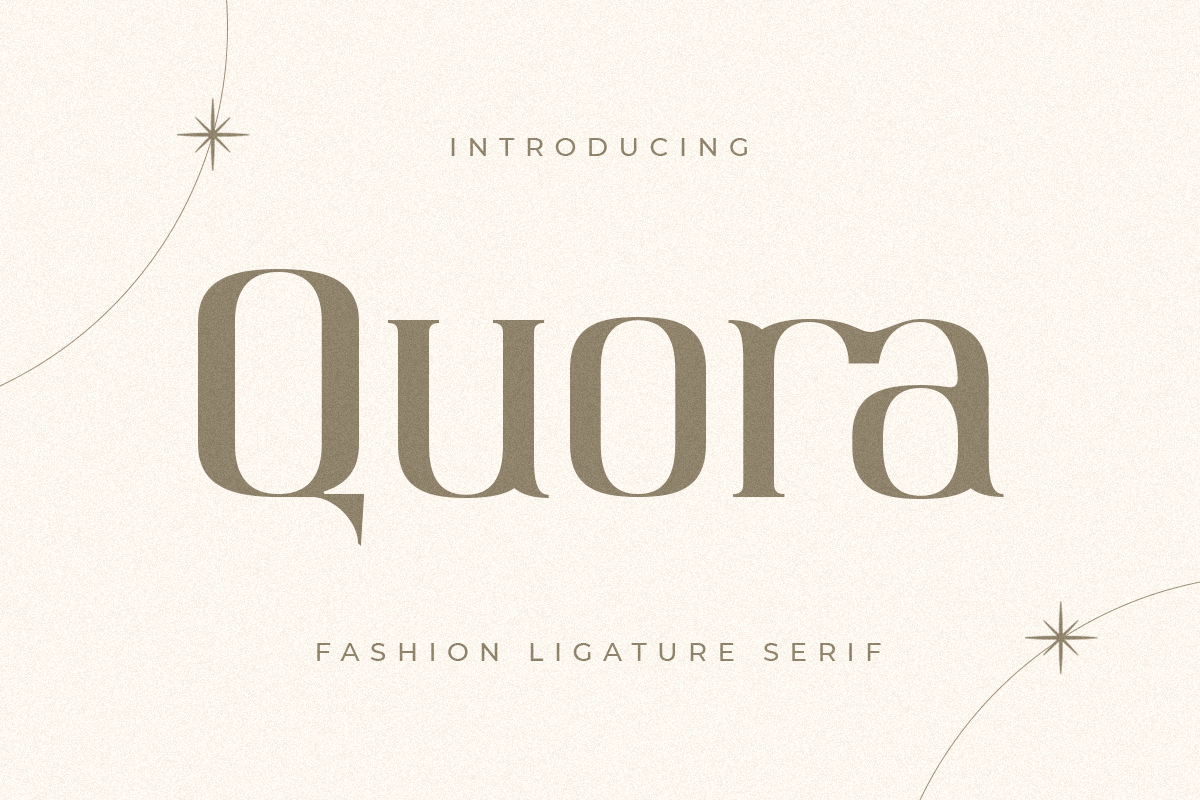
Quora
A Fashion Ligature Serif font that we created special for elegant branding needs, with extra ligature and alternates in unique shape will be ready to add value of your brand. It so nice to leverage designer or product owner that need solutions to make their design look more classy and modern. And specially for this font, We prepared any ligatures, and any alternate characters to help you create unlimited variations for your creative needs.
Quora serif font ready with:
Any options to get creative variations (combination of Alternate and Ligatures)
Preview as a inspirations that you can do with Quora font